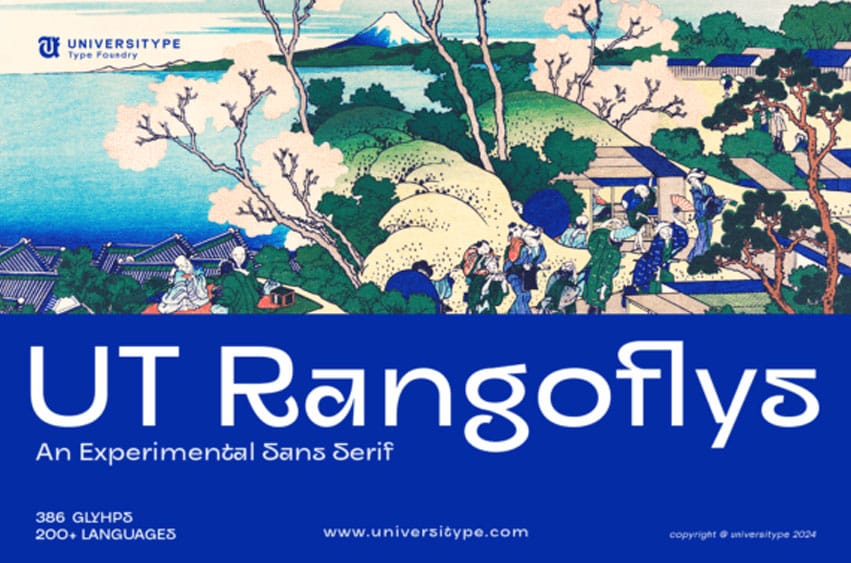
Ut Rangoflys Font is a harmonious blend of Eastern and Western aesthetics with UT Rangoflys, a forward-thinking sans serif font sparked by the enticing elegance of Japanese Hiragana script. This trailblazing typeface interweaves the fluid essence of classic calligraphy with revolutionary, modern design, showcasing an idiosyncratic and adaptable typographic journey. Embodying the spirit of Hiragana’s gentle arches and seamless transitions, UT Rangoflys integrates contemporary notes, yielding a font that is both expressive and practical. With UT Rangoflys’ 386 diligently designed glyphs supporting over 200 languages, it epitomizes the go-to font for global visionaries.
From digital platforms, brand identities, to printed materials, UT Rangoflys contributes a dash of finesse and creative flair to any endeavor. Whether you intend to make a daring declaration or infuse nuanced refinement, this font enhances modern typography with a refreshing take.
As for its key features, the uppercase letters cast a sleek, minimalistic silhouette, festooned with subtle variances and distinctive curves for an experimental vibe. The lowercase counterparts adopt a more affable, circular format, yet don’t lose their experimental zest. Numerals and punctuation strike a clean-cut, legible harmony with the overarching modern sans serif ethos. The punctuation boasts a balancing act between conventional and imaginatively conceived symbols, apt for diverse design environments.
The font also includes a portfolio of accented characters and special symbols, ensuring its aptitude for multi-lingual scenarios. Experimental glyphs, such as the stylized “a” and “g”, introduce unexpected twists and turns.
As for the inspiration, UT Rangoflys pays homage to the lyrical, rounded profiles emblematic of the Japanese Hiragana script. The influence is palpable in the font’s tender curves, seamless transitions, and nuanced stroke variations. This calls to mind the calligraphic charm of Hiragana, all the while infusing it with contemporary, experimental design elements.